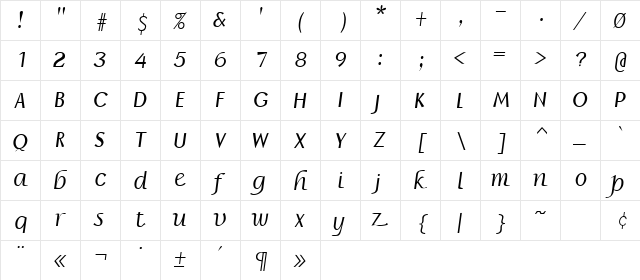
Labdanum Normal
Design Context for Labdanum Typeface
Labdanum offers clean, dependable letterforms without strong stylistic allegiance, making it a practical choice for designers who need flexibility.